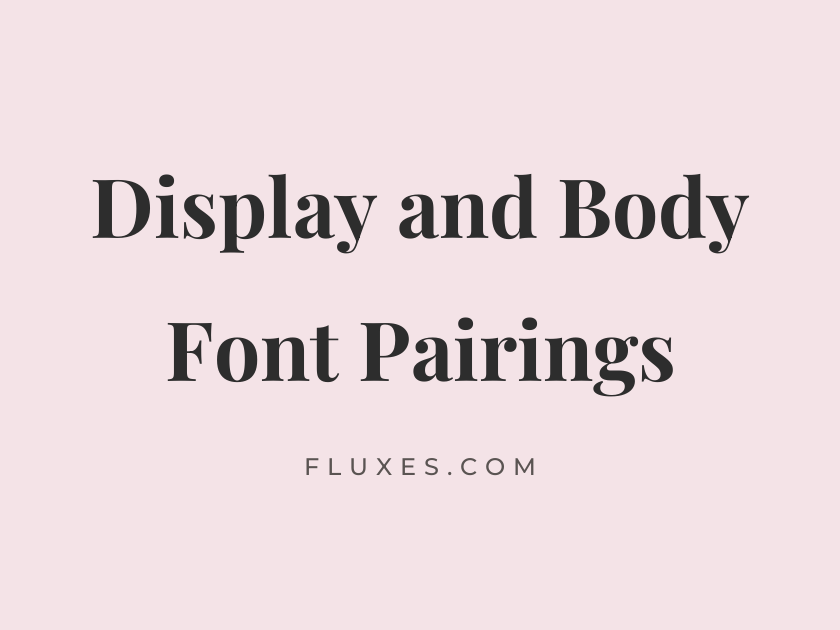
10 Best Display and Body Font Pairings
Pairing a display face with a body face is an exercise in contrast: the heading gets to be loud, structural, even eccentric, while the text face has to stay readable at small sizes for paragraphs at a time. The best font pairings on Google Fonts balance that tension, either through a shared skeleton that keeps the two families visually related, or through deliberate contrast in mood that still feels intentional rather than accidental.
1. Playfair Display + Noto Sans
Elegant Headlines, Honest Text
Playfair Display’s high-contrast strokes and sharp serifs give a headline real editorial weight, while Noto Sans’s plain, humanist letterforms disappear into the background of a paragraph. The gap in personality between the two is the point: one is for looking at, the other is for reading. This combination suits magazine layouts, wedding invitations, and any brand that wants a touch of formality without feeling stiff.
2. Abril Fatface + Lato
Bold Statements, Clear Copy
Abril Fatface is unapologetically heavy, built for short bursts of type rather than long reading, so it needs a body partner that stays neutral and unobtrusive underneath it. Lato’s rounded, slightly warm sans-serif does exactly that, adding a bit of friendliness without competing for attention. This pairing works well for fashion sites, event promotion, and posters where the headline needs to shout.
3. Oswald + Merriweather
Condensed Impact, Comfortable Reading
Oswald’s condensed, narrow proportions make it efficient at large sizes, useful for tight headline space in blogs or news layouts. Merriweather balances that tightness with a body serif designed specifically for screen reading, with generous x-height and sturdy serifs that hold up in long articles. The combination reads as confident but not flashy, a good fit for editorial and journalism-style sites.
4. Bebas Neue + Karla
Strong Titles, Simple Sentences
Bebas Neue is all caps and all attitude, a display face built for posters and short labels rather than sentences. Karla, a grotesque with slightly quirky details, keeps the body text approachable and modern so the pairing doesn’t feel like it’s shouting the whole time. Together they suit fitness brands, streetwear, and other identities that want energy at the top of the page and calm below it.
5. Fraunces + Inter
Warm Serifs Meet Clean Sans
Fraunces has an old-style warmth with soft, almost hand-finished curves, which makes it feel more crafted than a typical display serif. Inter, designed specifically for user interfaces, brings crisp legibility and a huge range of weights, so it never feels out of place next to something more expressive above it. This is a dependable choice for design studios, product sites, and portfolios that want personality without sacrificing clarity.
6. Archivo Black + Work Sans
Heavy Type, Light Paragraphs
Archivo Black is dense and geometric, built to fill space and demand attention, so it benefits from a body font with more air in its letterforms. Work Sans, with its open counters and moderate width, gives the eye room to breathe after the density of the headline. Startups and tech products often reach for this kind of pairing because it reads as direct and modern without feeling cold.
7. DM Serif Display + DM Sans
Refined Serifs, Matching Sans
These two were designed as a family from the start, so their proportions, x-heights, and overall rhythm line up almost perfectly on the page. DM Serif Display adds a literary flourish to headlines while DM Sans keeps paragraphs clean and consistent, without any of the awkward size or weight mismatches that can happen when pairing unrelated fonts. It is a low-risk, high-reward option for blogs, newsletters, and personal sites.
8. Libre Baskerville + Mulish
Classic Serif, Modern Support
Libre Baskerville was drawn specifically for on-screen reading, so using it as a display face at larger sizes gives it a literary, trustworthy tone that still feels current. Mulish, a minimal and slightly rounded sans, sits underneath without pulling focus, letting the serif carry the character of the page. This pairing suits law firms, publishers, and any brand built on credibility.
Tips for choosing your own display and body pairing
Check x-height and letter width before anything else; a display font with a tiny x-height next to a body font with a tall one will look mismatched no matter how nice each is individually.
Limit yourself to two typefaces per page unless you have a strong reason for a third, and let weight and size do the work of creating hierarchy.
When in doubt, test the pairing with real sentences, not just a single word, since some fonts that look great as a logotype fall apart across a full paragraph.